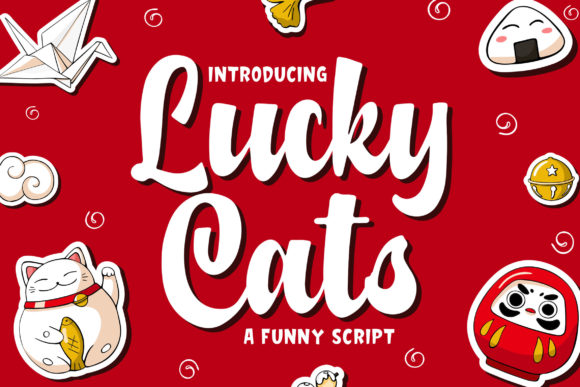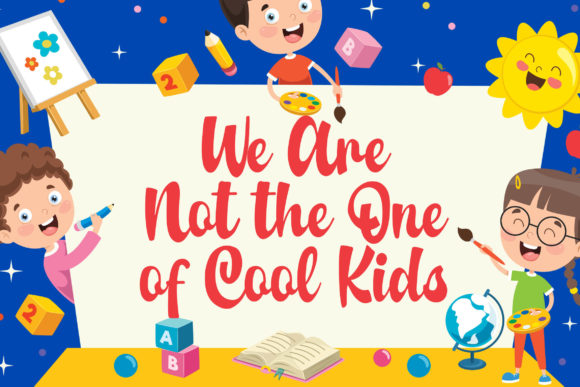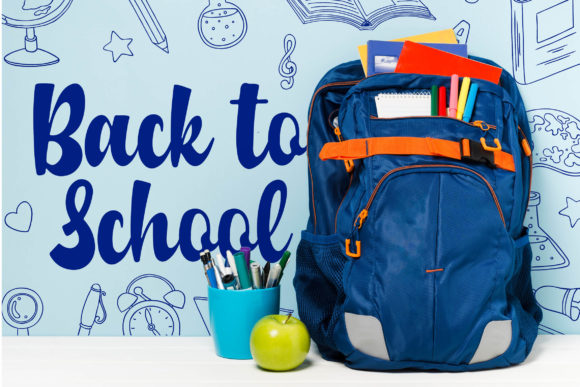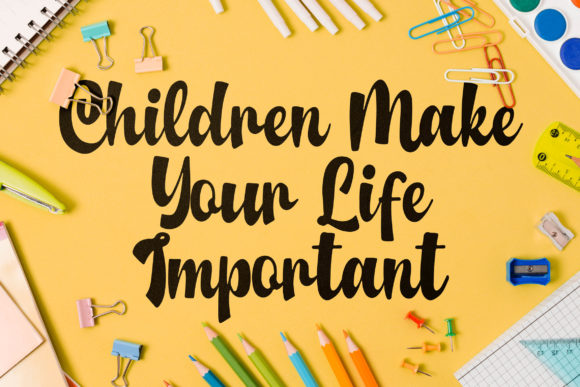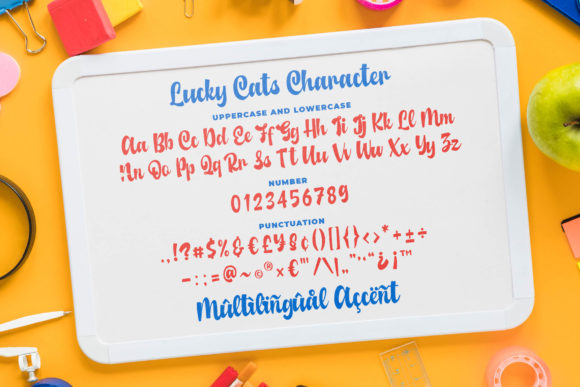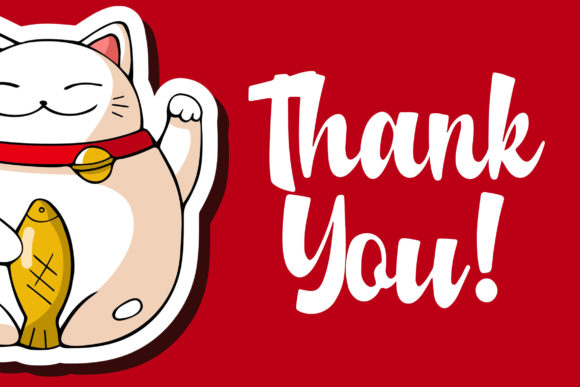
HomeScript FontsLucky Cats Font Script Fonts Lucky Cats Font FacebookXPinterestWhatsApp Lucky Cats Font Poster 2 Lucky Cats Font Poster 3 Lucky Cats Font Poster 4 Lucky Cats Font Poster 5 Lucky Cats Font Poster 6 About Lucky Cats Font Lucky Cats is a fancy script font with playful characters. It will add a fun touch to any crafting project! DOWNLOAD ON CREATIVE FABRICAThis font is sold and delivered by Creative Fabrica. Font Canyon may earn a commission if you buy through this link. People also explored Sport Gazenox Font Servo Font Wondertis Brush Font Mezabetto Font Amsterland Font Christmas Lightstar Font Heart to Heart Font Moon Font Monalyon Font 404 0 TagsLucky Cats Font Previous articleMicheline FontNext articleStarfight Font LEAVE A REPLY Cancel reply Comment: Please enter your comment! Name:* Please enter your name here Email:* You have entered an incorrect email address! Please enter your email address here Website: Save my name, email, and website in this browser for the next time I comment. Personal Use Free Rosebirth Personal Use Free Read more about this font Vincent Familiante Personal Use Free Read more about this font Cottage Personal Use Free Read more about this font Travelling Free Brush Personal Use Free Read more about this font BLOG Exploring Font Trends Shaping Communication in the Digital Era Fonts, like all design elements, are subject to trends. They play a crucial role in communicating a brand's personality,... How to Cut Any Font on Cricut: Convert a Font to SVG (Free) Elegant Wedding Invitation Fonts – Handwritten & Script Fonts Where to Buy American Fonts Online in 2024